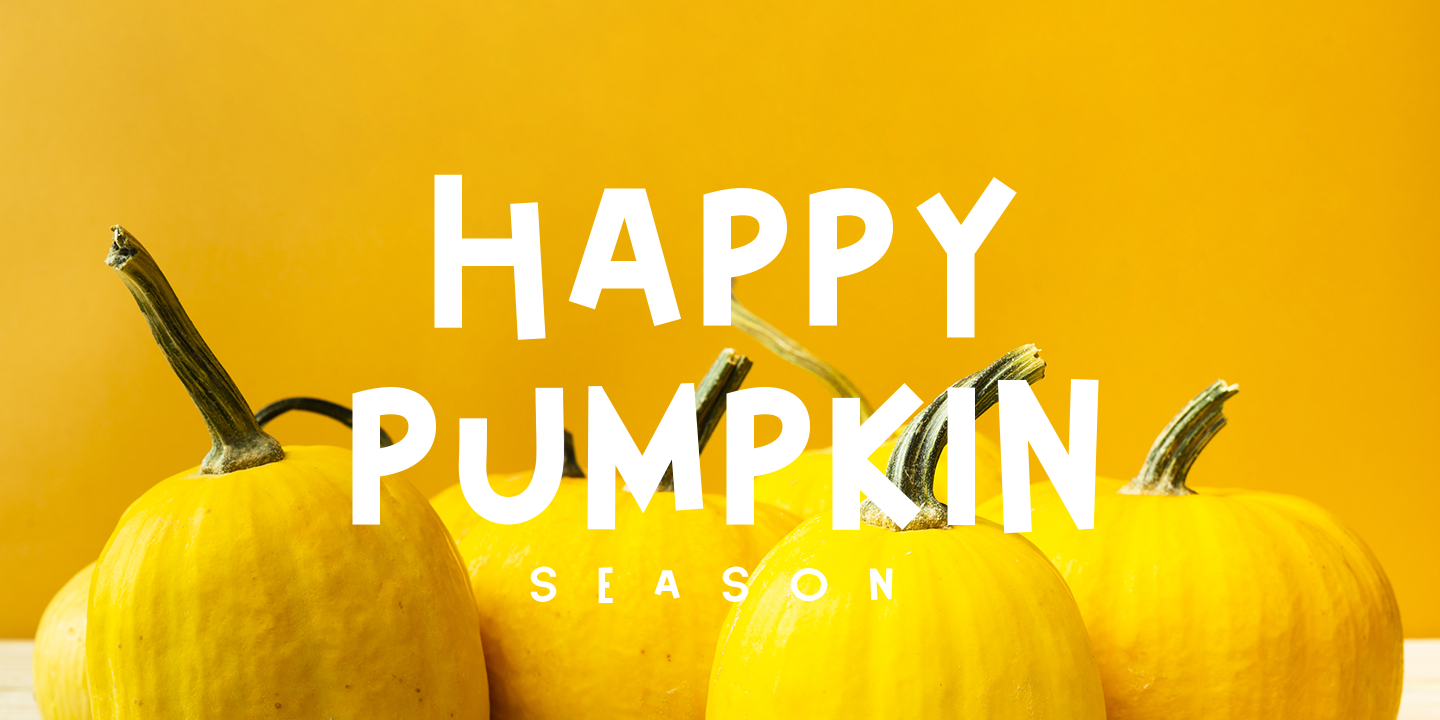
The Happy Pumpkin Font is perfect for Halloween party invitations, autumn festival promotions, harvest celebration graphics, pumpkin patch signage, fall-themed restaurant menus, seasonal craft store materials, Thanksgiving event posters, cozy autumn wedding invitations, and seasonal children's book covers.
What makes the Happy Pumpkin Font so exciting is its cheerful seasonal warmth that perfectly captures the joyful spirit and cozy comfort of autumn celebrations. This delightful typeface embodies the festive happiness and harvest abundance that defines fall festivities, creating an immediate impression of seasonal joy and warm celebration. The font's happy pumpkin character communicates the cheerful warmth and festive authenticity that autumn businesses need to attract families and individuals who embrace seasonal traditions and seek cozy experiences filled with harvest celebration and autumn magic.
The Happy Pumpkin Font family includes Regular weight featuring complete uppercase and lowercase character sets, comprehensive numerical collections, essential punctuation marks, and autumn-themed symbols that maintain the seasonal aesthetic throughout your fall celebration and harvest festival design projects.
Autumn businesses and seasonal service providers consistently choose Happy Pumpkin Font Free Download for projects that require authentic seasonal appeal and festive autumn communication. This exceptional typeface excels in environments where establishing harvest warmth and autumn celebration atmosphere is crucial for attracting families who value seasonal traditions and cozy fall experiences. The font's happy pumpkin character helps communicate the joy and seasonal authenticity that autumn audiences expect from established seasonal businesses and festive celebration service providers.
The distinctive qualities of Happy Pumpkin Font reflect the beloved traditions of autumn celebrations where harvest gratitude, seasonal warmth, and family togetherness create memorable experiences and lasting seasonal memories. Each character demonstrates the cheerful enthusiasm and cozy comfort that characterizes successful autumn businesses and seasonal celebration enterprises. The font's proportions and spacing create perfect balance between festive joy and seasonal readability that modern autumn businesses require for effective seasonal communication and harvest celebration positioning.
Contemporary seasonal enterprises appreciate how Happy Pumpkin Font communicates autumn authenticity and harvest celebration excellence. Whether designing materials for pumpkin patches, creating branding for fall festival organizers, or developing marketing for seasonal dining establishments, this font delivers the cheerful character that distinguishes genuine autumn celebration from generic seasonal theming. The typeface works exceptionally well for businesses emphasizing family traditions, harvest warmth, and the cozy appeal of authentic autumn experiences and seasonal celebration magic.
The versatility of Happy Pumpkin Font extends across multiple autumn applications and seasonal marketing initiatives. Farm markets utilize its cheerful character for harvest promotional materials and autumn produce communications. Seasonal event planners choose it to communicate their commitment to authentic fall celebrations and cozy autumn experiences. Children's entertainment centers rely on its festive appearance to attract families seeking joyful seasonal activities and harvest celebration fun.
Digital autumn platforms benefit from Happy Pumpkin Font's optimized performance across various seasonal applications and harvest celebration communication channels. The font maintains its happy pumpkin character whether displayed on autumn websites, mobile seasonal apps, or digital fall celebration materials. This technical reliability ensures consistent brand presentation across all seasonal communication platforms and autumn celebration engagement scenarios.
The emotional impact of Happy Pumpkin Font resonates with audiences who cherish autumn traditions and seek seasonal experiences that celebrate harvest abundance and family togetherness. The typeface serves as a visual celebration of seasonal joy and autumn warmth that helps seasonal businesses build loving relationships with families who value cozy traditions and authentic harvest celebrations. This connection to seasonal happiness and autumn magic makes it invaluable for establishing memorable seasonal brand identities.
Seasonal marketing specialists and autumn celebration design professionals recognize Happy Pumpkin Font as an essential tool for authentic harvest branding. The font captures the essence of autumn joy while making seasonal celebration accessible to contemporary businesses who want to communicate their commitment to family traditions, harvest warmth, and the cheerful appeal of genuine autumn experiences in today's seasonal celebration marketplace.